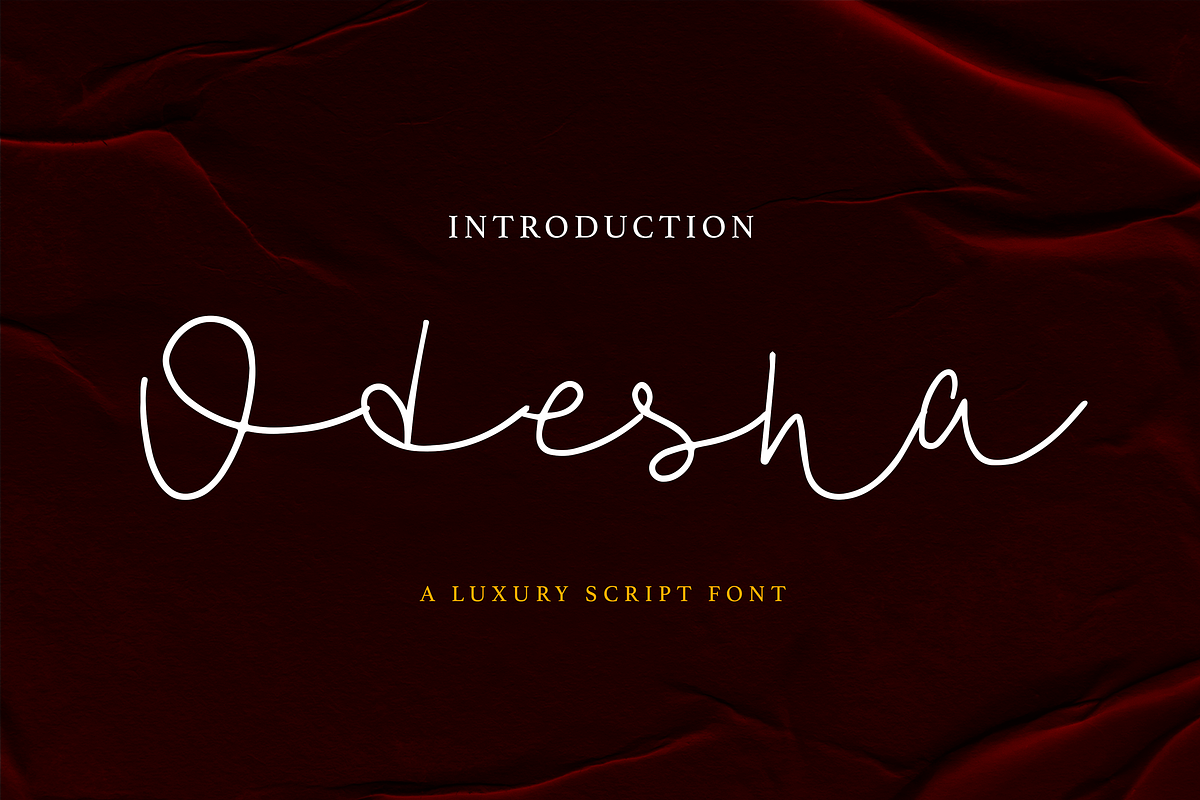
My Odesha Script Font Free Download
My Odesha Script Font Free Download is a romantic and elegant handwritten typeface that flows with grace and charm. With its smooth curves, stylish swashes, and delicate letterforms, this script font is perfect for wedding invitations, feminine branding, social media posts, boutique packaging, and heartfelt quotes. It brings a personal, signature-like touch to every project.
Using the My Odesha Script Font Free Download instantly elevates your design with a sense of sophistication and warmth. Whether you're creating a classy logo or a love-filled message, this font delivers beauty and expression in every stroke.